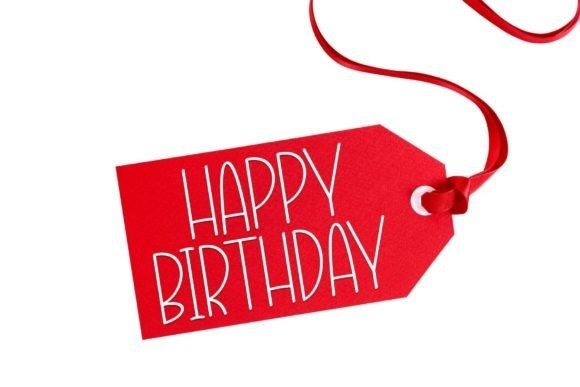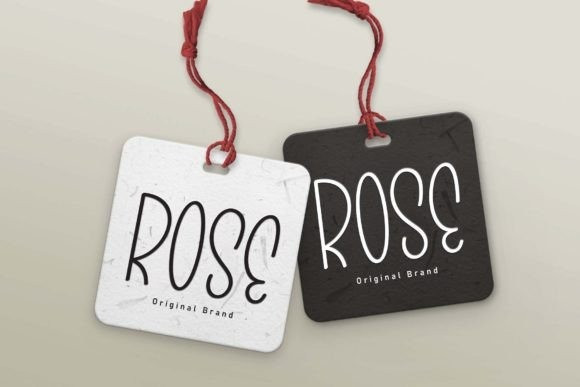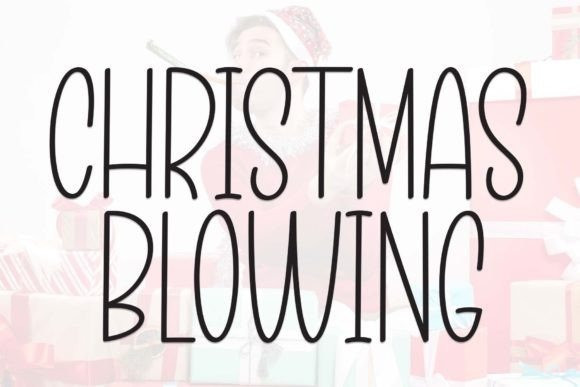
Christmas Blowing Font
Christmas Blowing is a sweet and friendly handwritten font. Its natural and unique style makes it incredibly fitting to a large pool of designs. The only limit is your imagination!